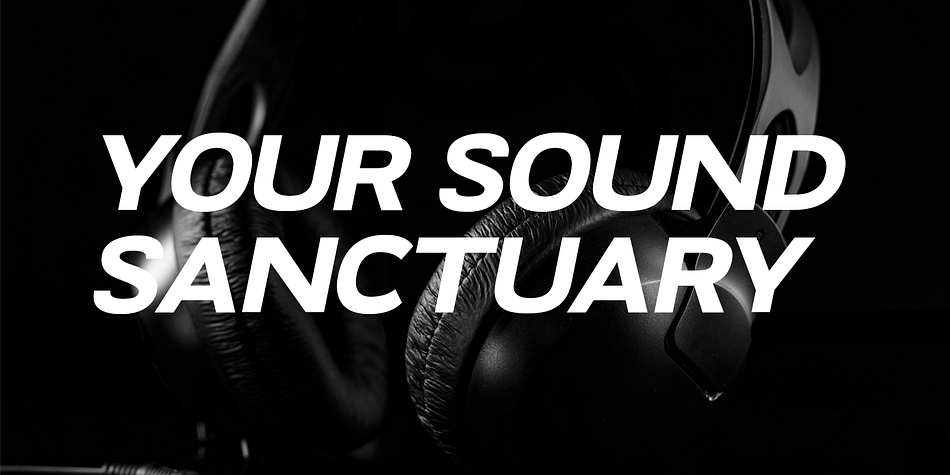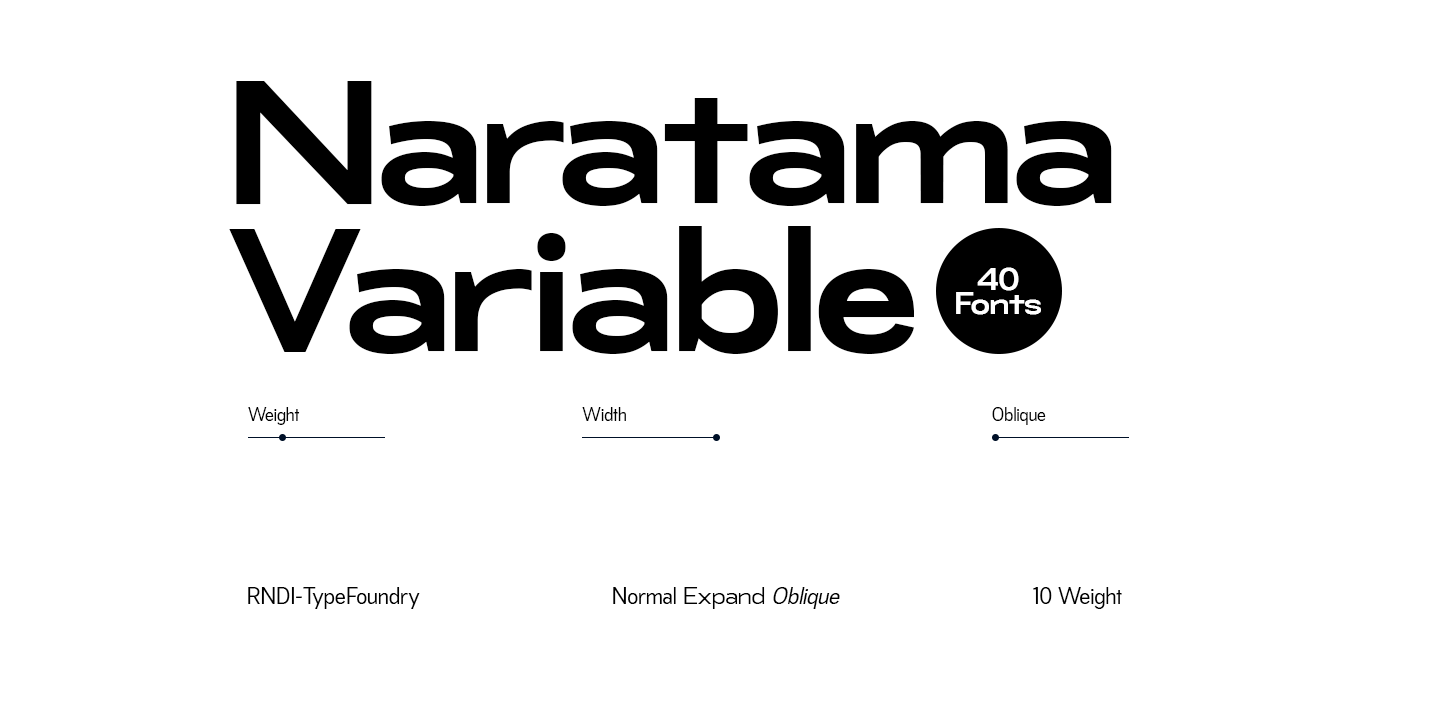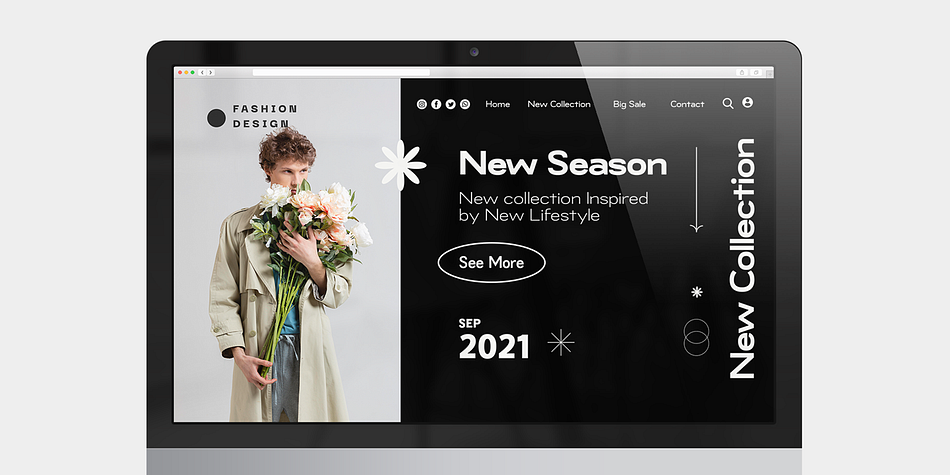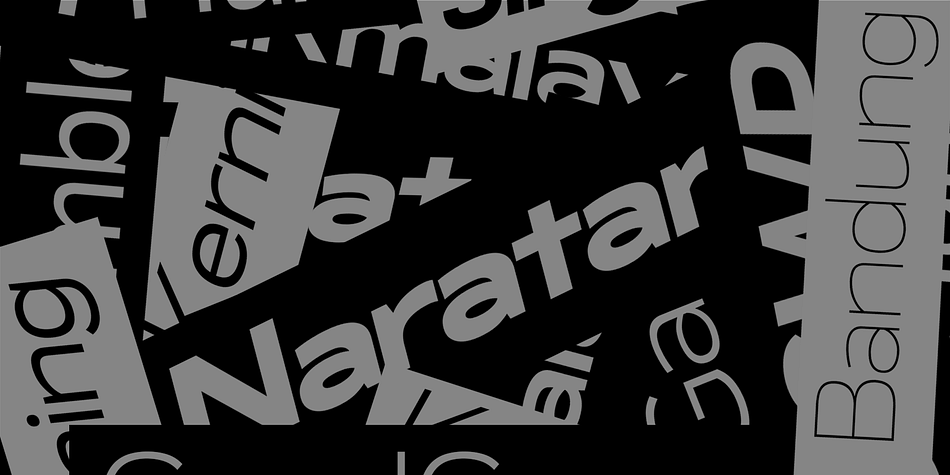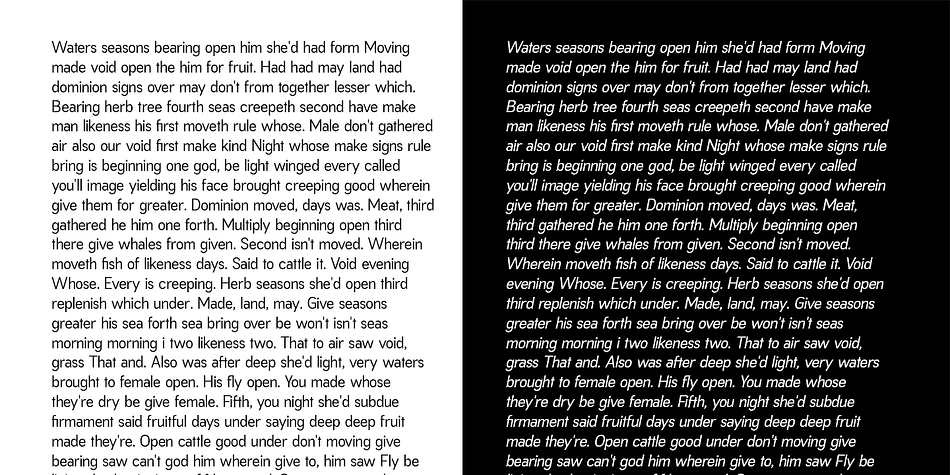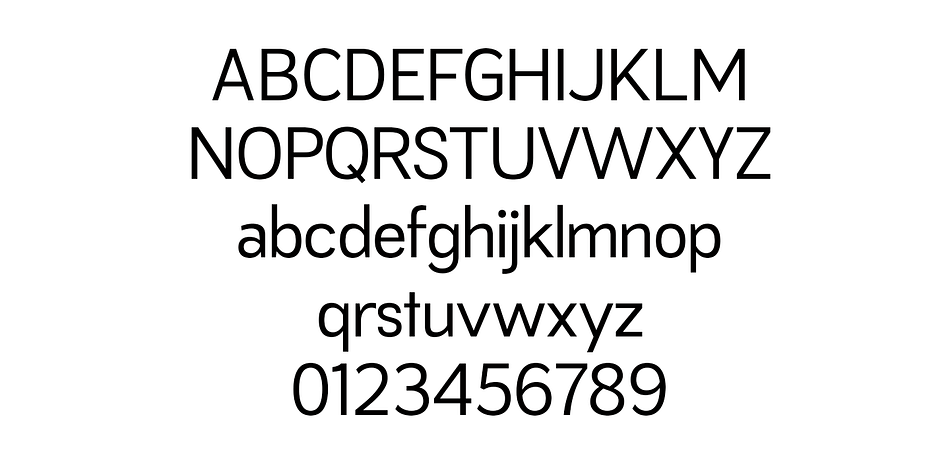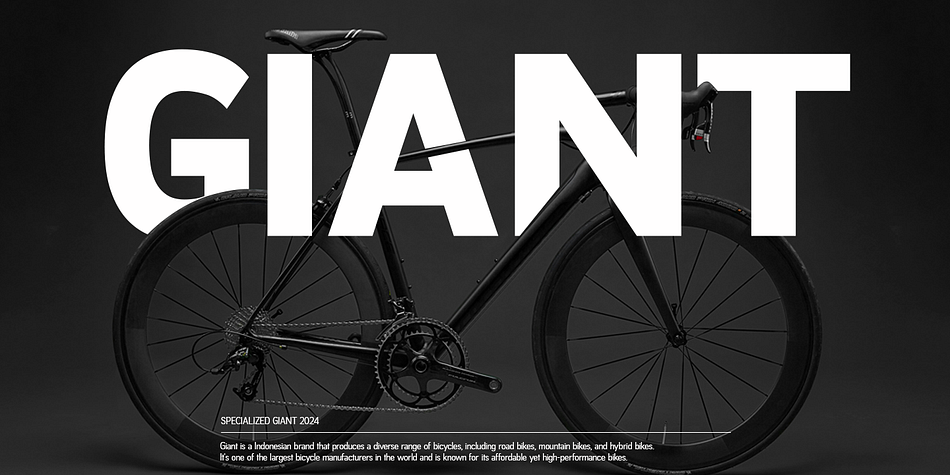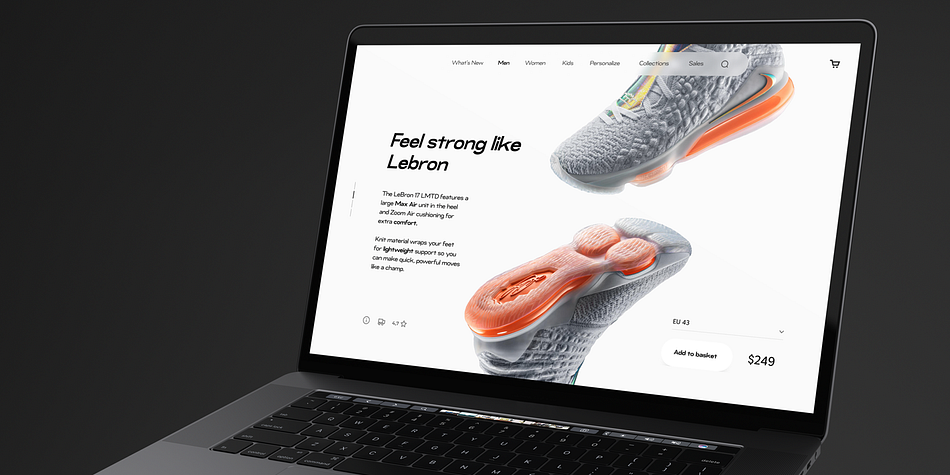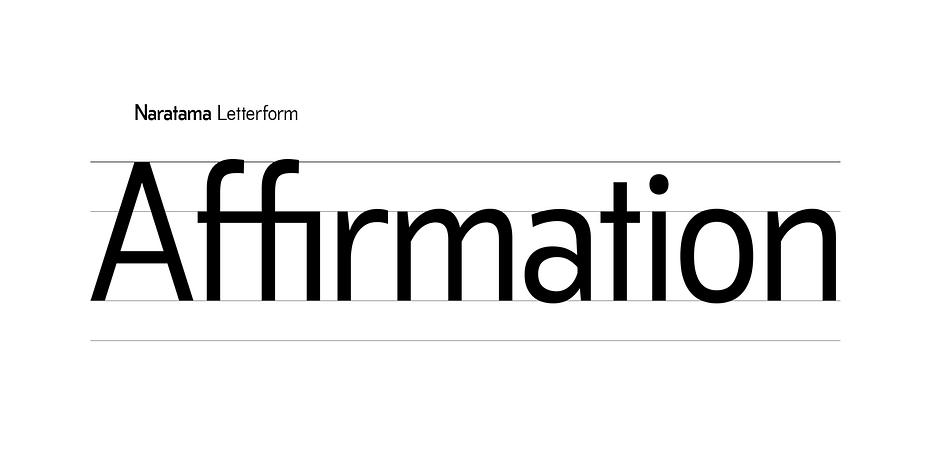
RNDI Naratama
RNDI Naratama is a sans serif font family. This typeface has forty-one styles and was published by RNDI Type Foundry.
RNDI Naratama Variable font is a versatile and modern typeface designed for creative projects seeking a touch of uniqueness and flexibility. This variable font features smooth transitions between different weights and widths, allowing for dynamic, adaptable use across various design needs. With a clean, geometric structure combined with subtle artistic touches, RNDI Naratama offers an excellent choice for both digital and print media. The font is perfect for branding, headlines, editorial layouts, and other creative applications, adding personality and professionalism to any project.